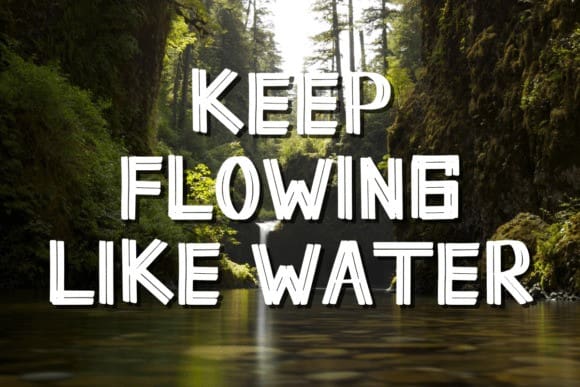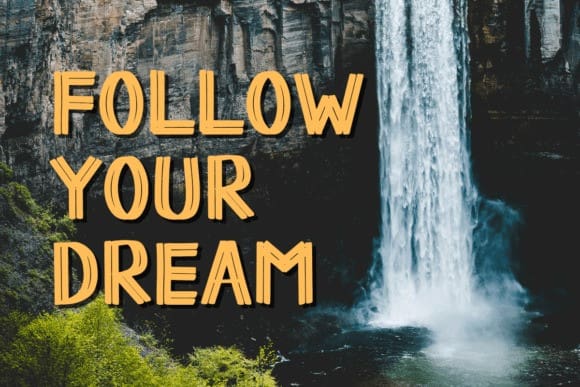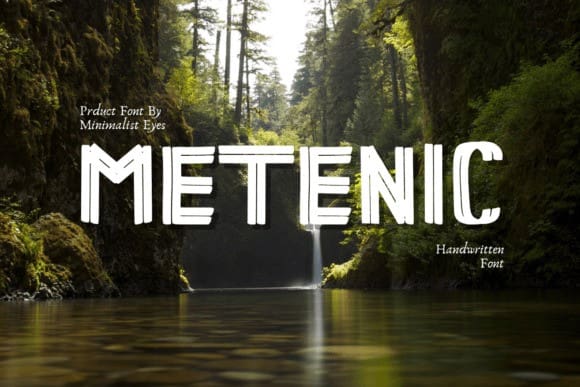
Metenic Display Font
Metenic Display Font is a quirky yet cool display font, perfect for making your designs stand out from the crowd. The characters are perfect for wall displays, wedding invitations, social media post logos, advertising, product packaging, product design, labels, photography, watermarks, invitations, stationery and any project that requires modern typography.